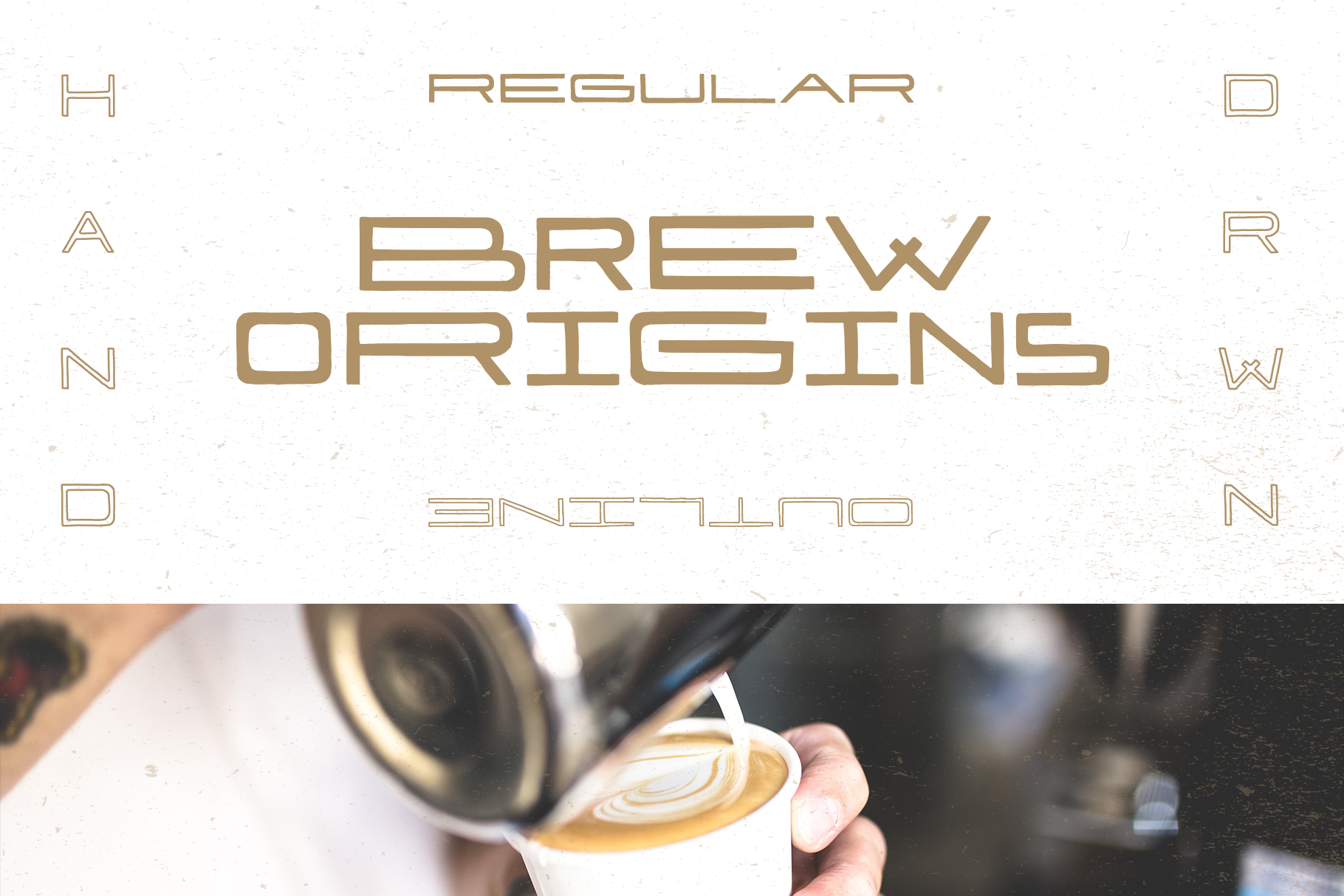
Brew Origins Font
Design Surplus have brewed up a brand new artisanal typeface. Bold and beautiful, Brew Origins has 2 widths of letters, just switch between lower and upper case when typing to activate the wider brew type.
We've also chucked in a free outlined version of Brew Origins giving you 2 fonts and 4 different letter types to create wording that's truly yours. Brew Origins is perfect for headline type and also smaller paragraphs using the lower case, regular width.
WHAT'S BREW ORIGINS GOOD FOR?
- Logos
- Branding
- Menus
- Headlines
- Paragraph text
- Packaging/labels
- Typography pieces